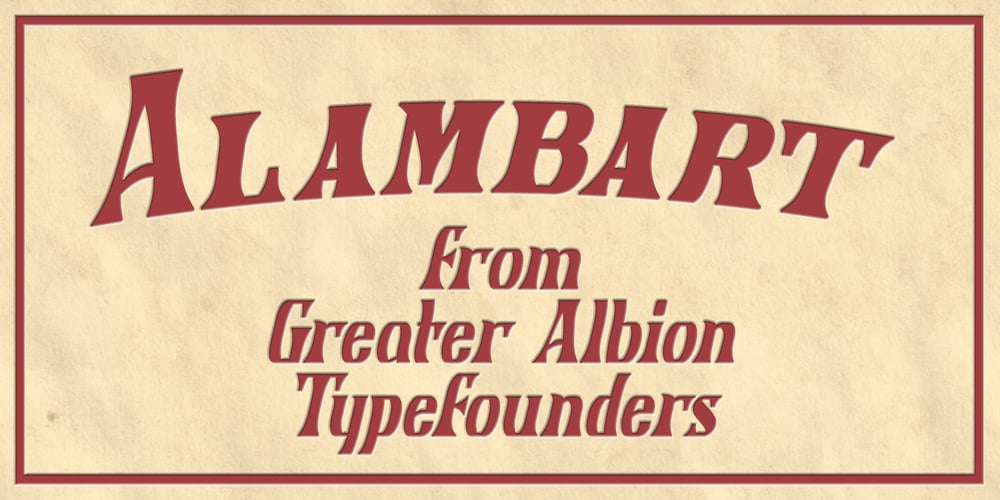
Alambart Font Family was designed by Paul James Lloyd and published by Greater Albion Typefounders. Alambart contains 1 styles and family package options. Alambart is one of a new series of ‘wood type’ inspired fonts. Alambart is a hand-cut oblique Roman, suggesting the late Victorian era, but the type of thing that continued in use well into the twentieth century. If you want a title face that has versatility and suggests a past history, this is it!